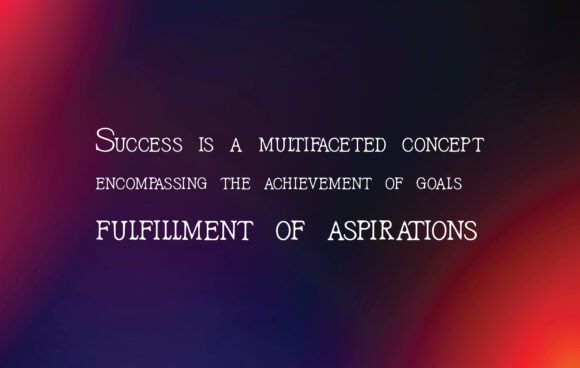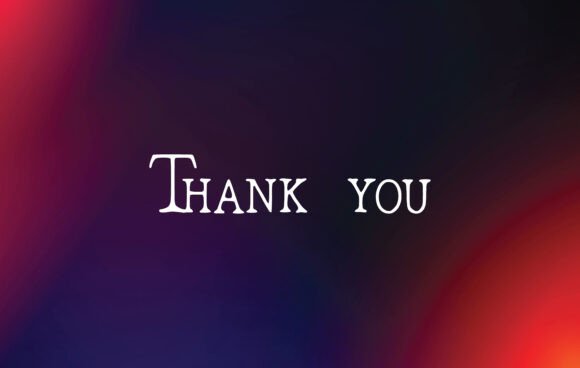
Introduction to Lilyana Font
Lilyana is a lovely and beautiful handwritten font.
Why Choose Lilyana Font?
Lilyana Font offers exceptional quality and versatility, making it a valuable addition to your design toolkit. Whether you’re creating for personal projects or commercial use, Lilyana Font delivers professional results.